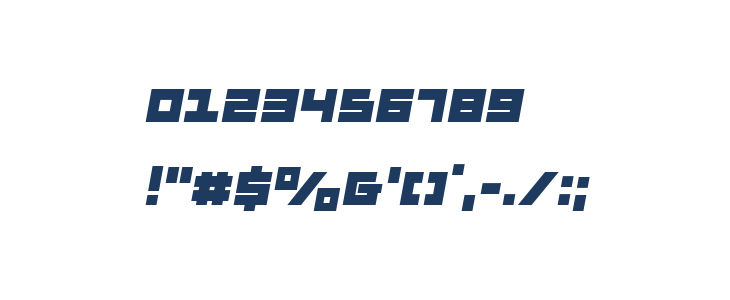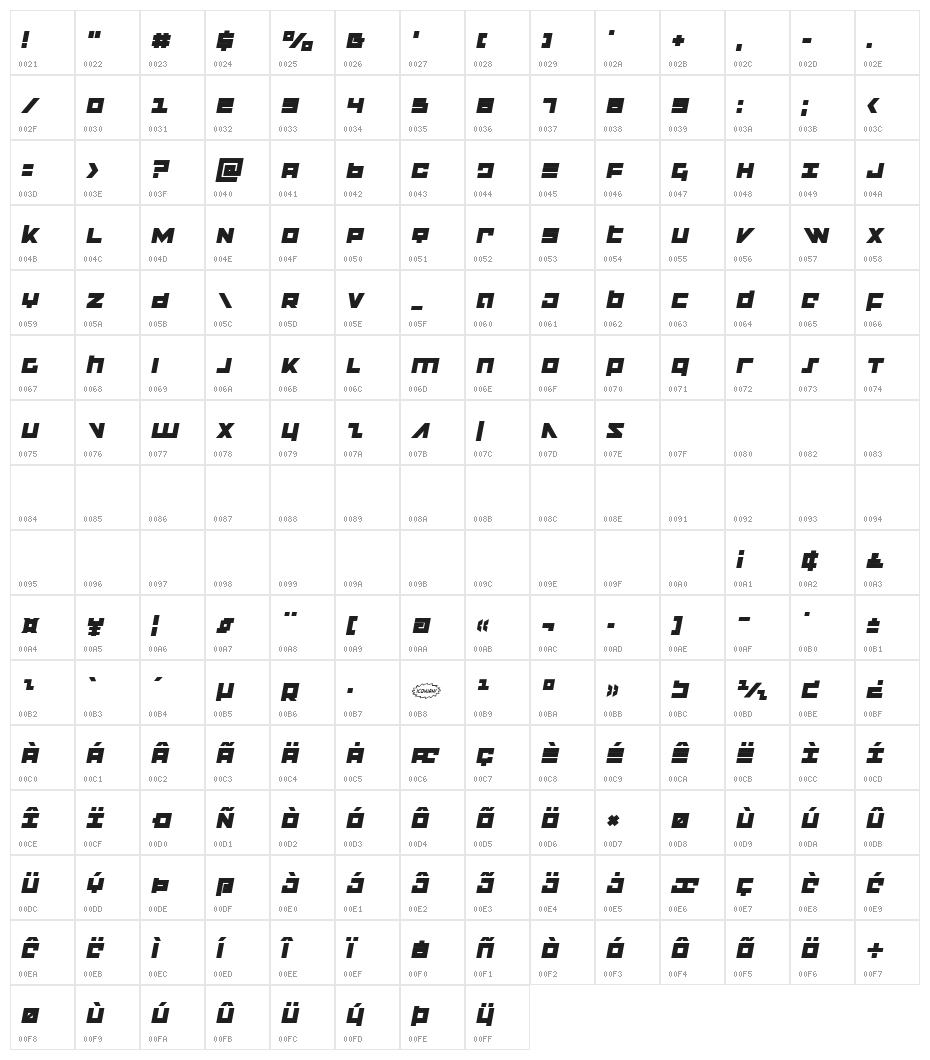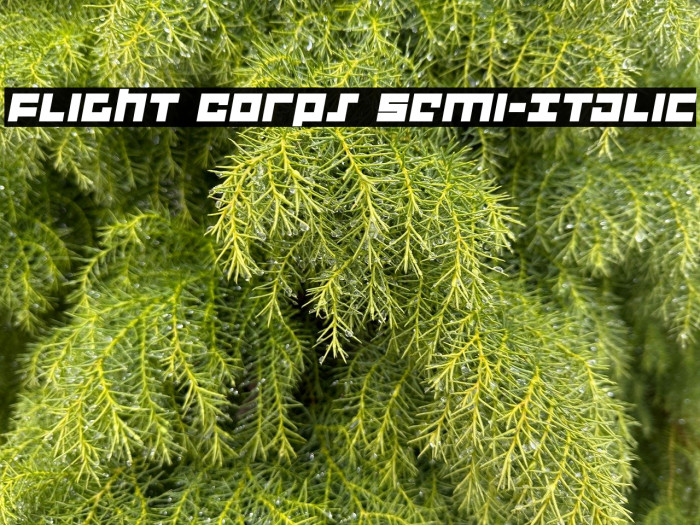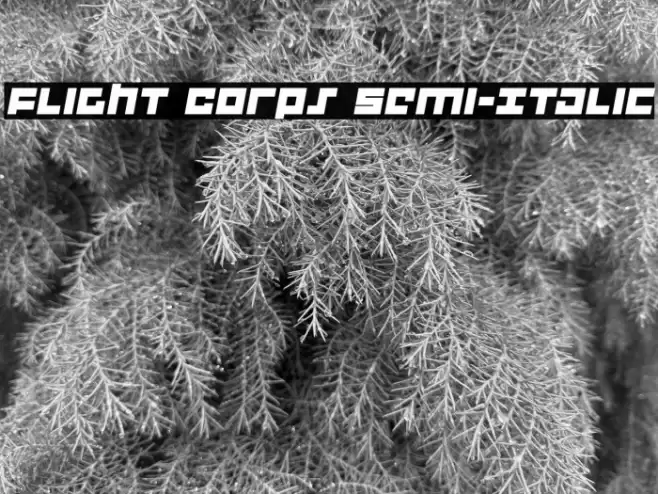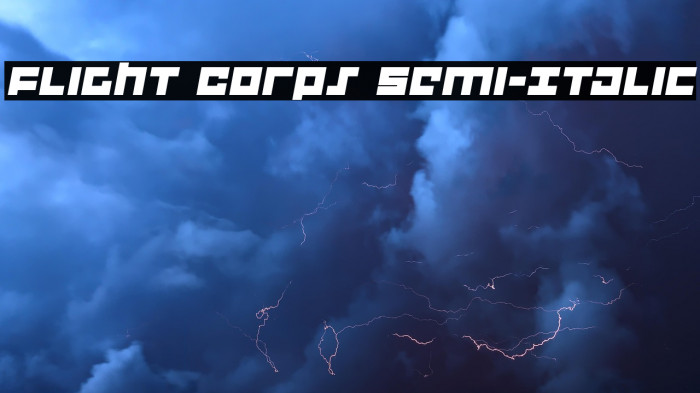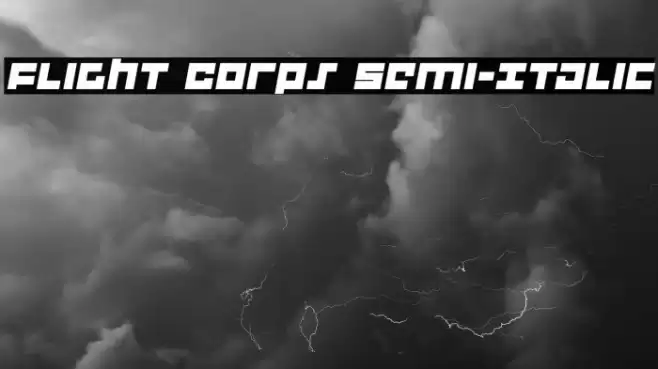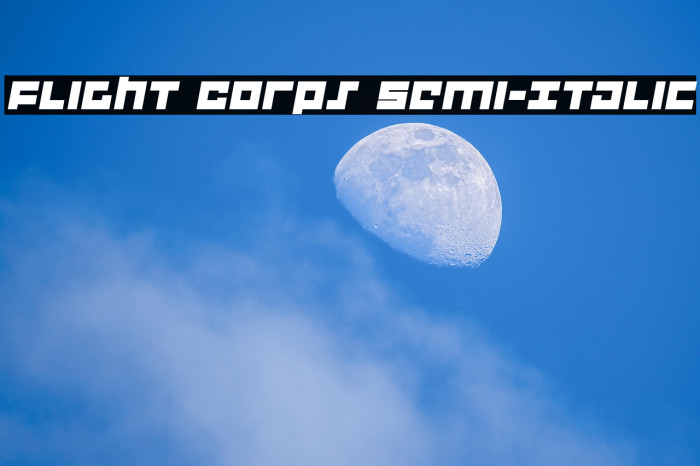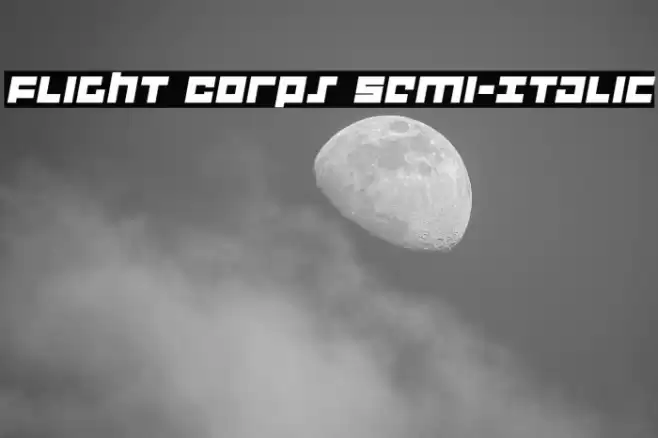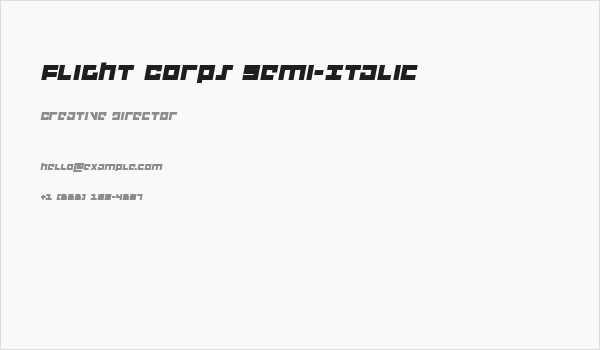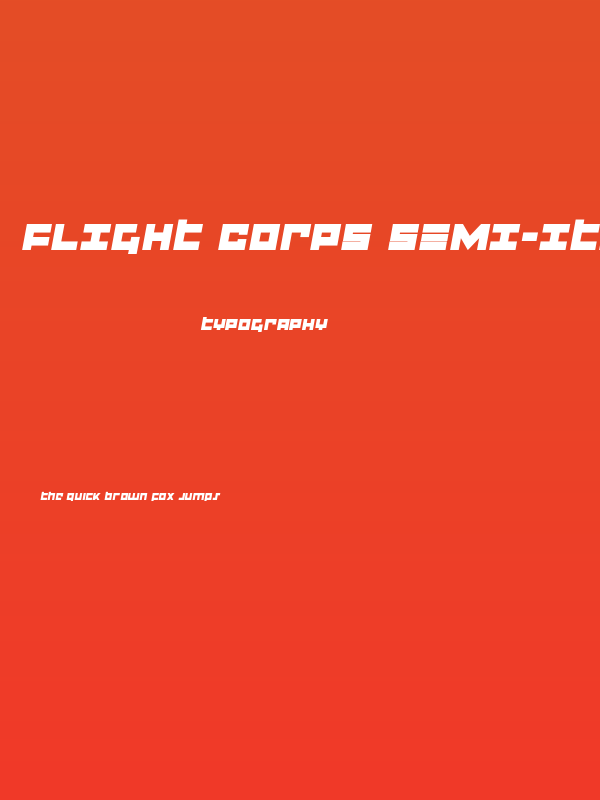
Flight Corps Semi-Italic Font
Flight Corps Semi-Italic Description
This font features a bold, angular design with a futuristic and dynamic appearance. The characters are constructed with sharp edges and geometric shapes, giving it a strong and assertive presence. The uppercase and lowercase letters maintain a consistent style, with a slight slant that adds to its energetic feel. The numbers and special characters follow the same design principles, ensuring uniformity across the font. This style is reminiscent of sci-fi themes, making it ideal for projects that require a modern and edgy look.